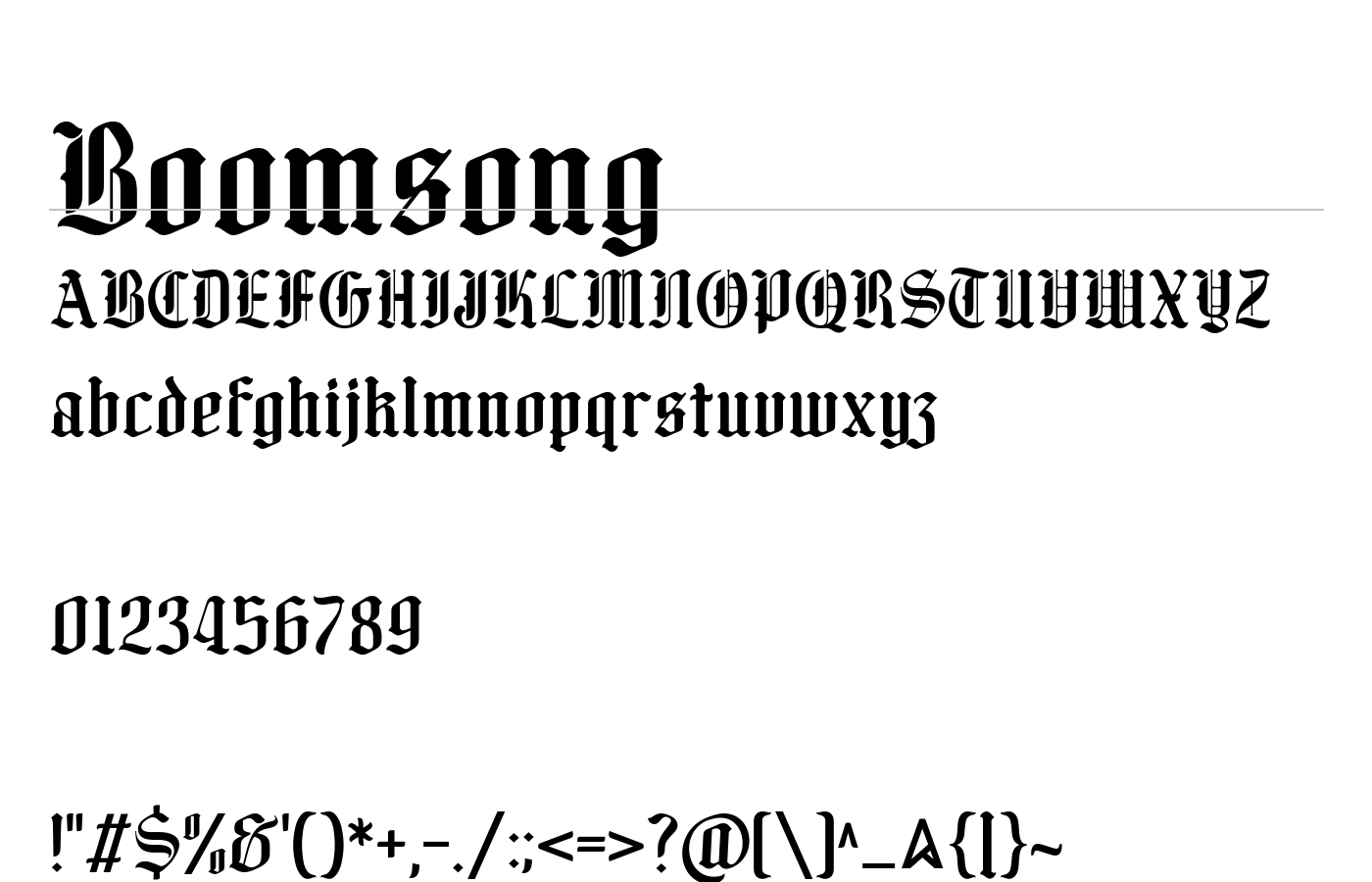
Boomsong is a bold blackletter serif font with a strong, vintage Gothic style, characterized by its sharp, angular strokes and thick-to-thin contrast. Its ornate, dramatic letterforms convey a historic and authoritative feel, making it ideal for logos, headlines, and branding that seek to evoke tradition, strength, or a medieval-inspired aesthetic. This font works best in display settings where its intricate detailing can be appreciated and adds a distinctive, timeless character.